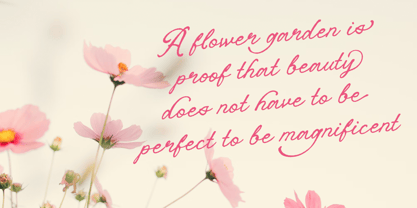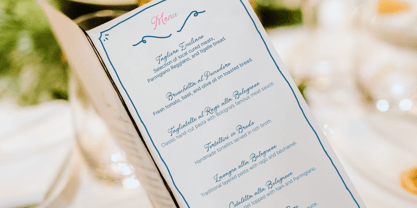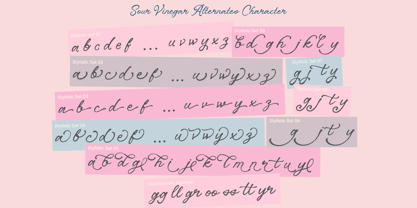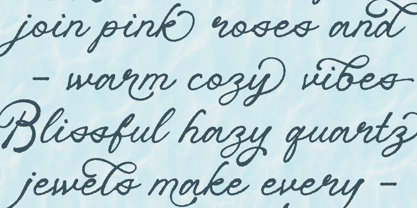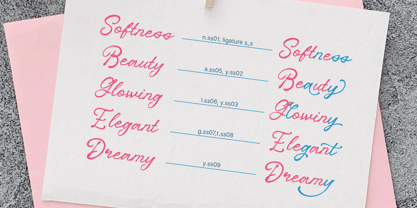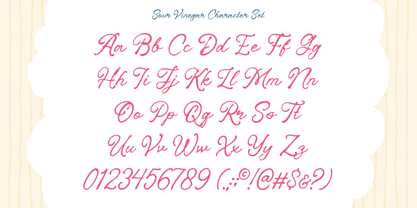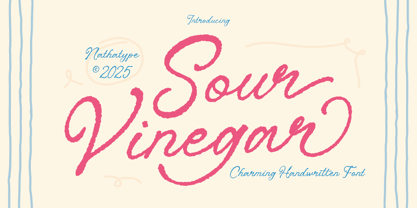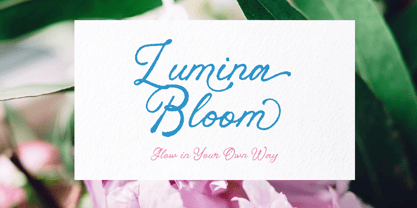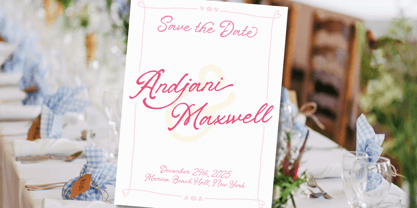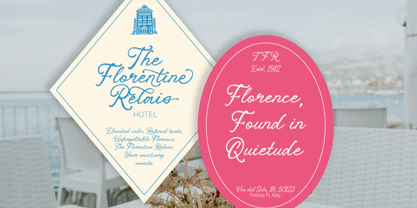
Sour Vinegar
by Nathatype
The Sour Vinegar Font Family was designed by Donis Miftahudin and published by Nathatype. Sour Vinegar contains 1 styles. More about this family
Sour Vinegar is a handwritten cursive font. Inspired by flowing cursive pen strokes, this font features smooth connected letters, low contrast, and irregular outlines instead of straight lines, giving it a genuine hand-drawn and expressive character. The result is a typeface that feels personal, relaxed, and creatively authentic. In addition, enjoy the features here. Features: Ligatures Multilingual Supports PUA Encoded Numerals and Punctuations Sour Vinegar fits in logos, quotes, invitations, branding, posters, and many more designs. Find out more ways to use this font by taking a look at the font preview. Thanks for purchasing our fonts. Hopefully, you have a great time using our font. Feel free to contact us anytime for further information or when you have trouble with the font. Thanks a lot and happy designing.
Sour Vinegar